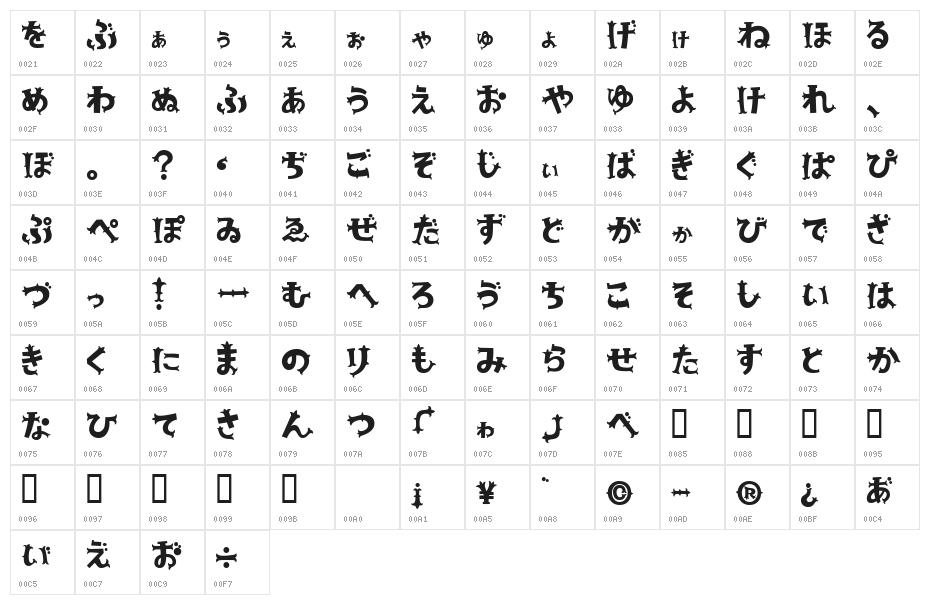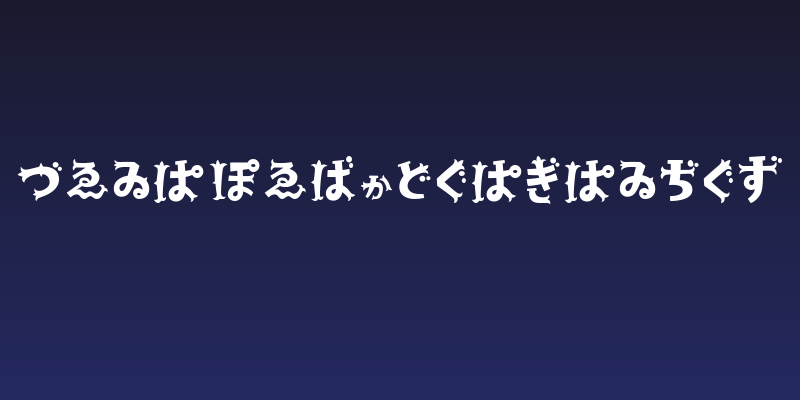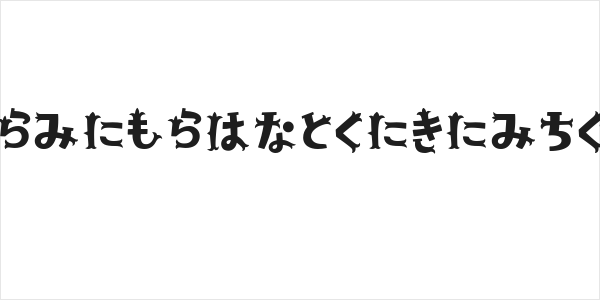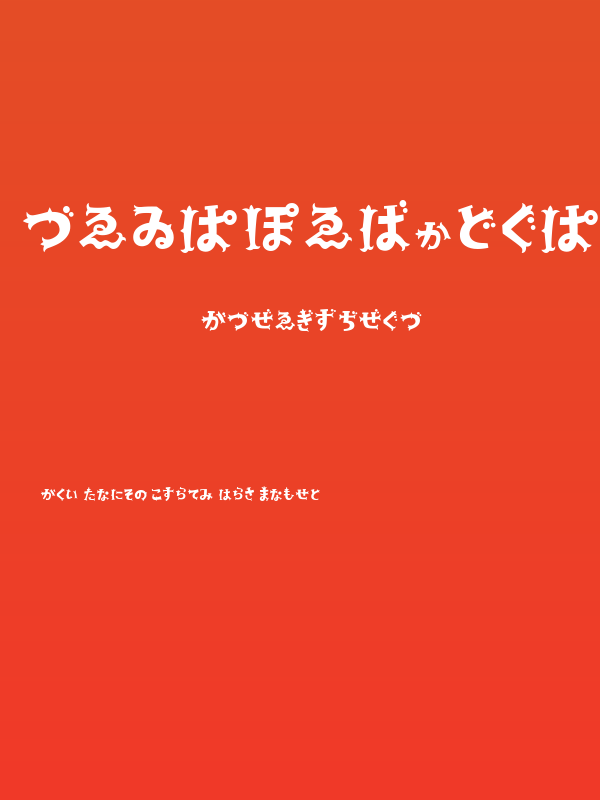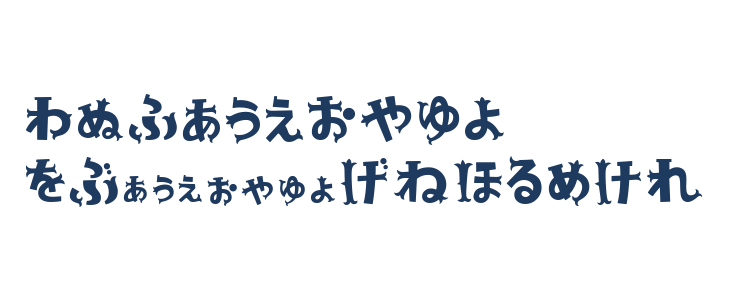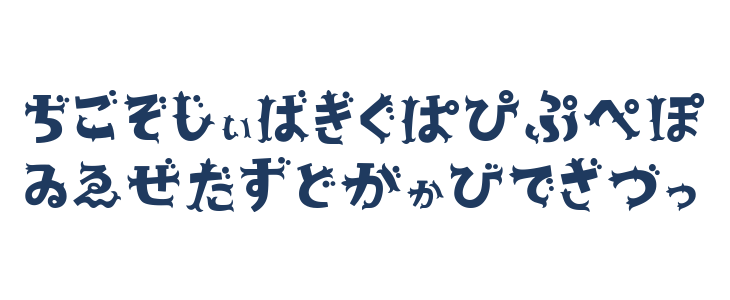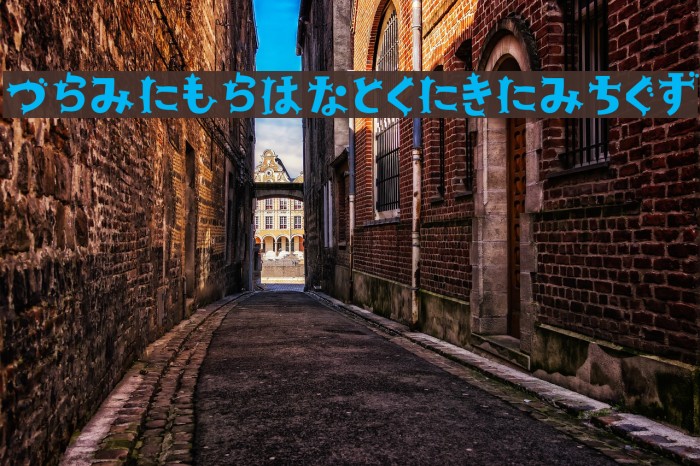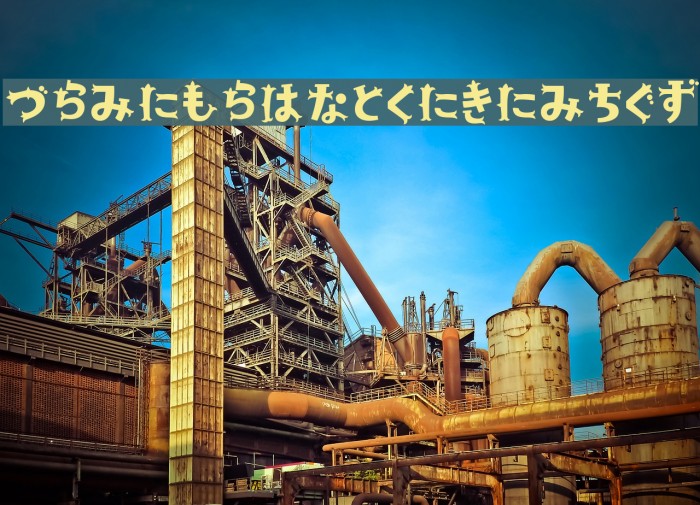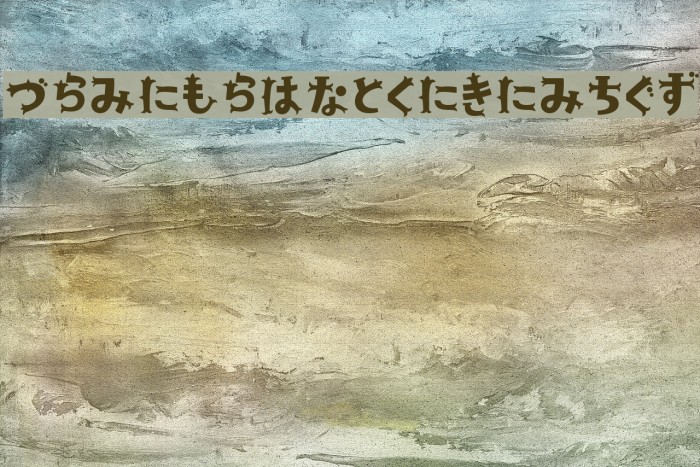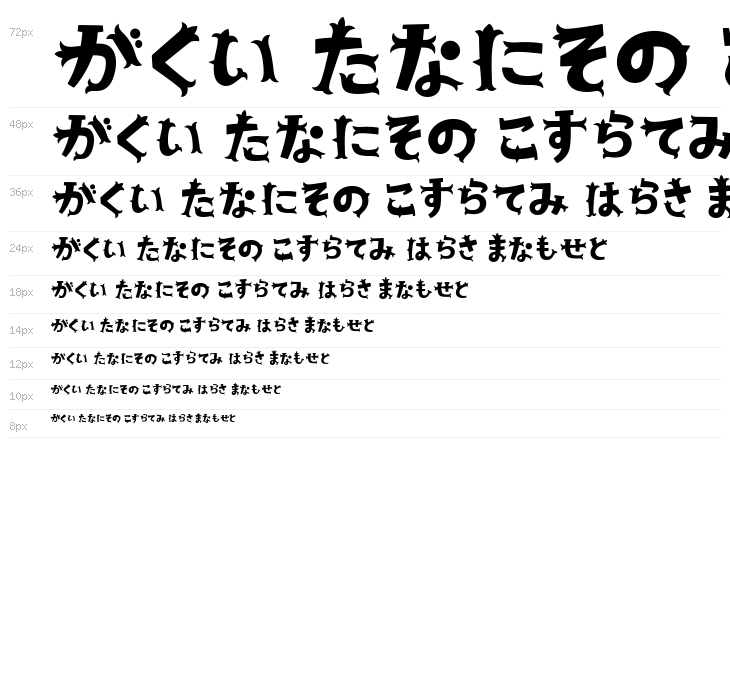
YonimofushiginaHR Font
YonimofushiginaHR Description
This font features a playful and whimsical style, characterized by its bold and decorative elements. The characters exhibit unique, exaggerated serifs and strokes that give it a lively and dynamic appearance. The overall design is reminiscent of traditional Japanese calligraphy, yet it incorporates modern twists with its bold and expressive forms. The font maintains a consistent weight throughout, ensuring readability while adding a touch of artistic flair. Its distinctive style makes it suitable for creative and eye-catching designs.
| Proposed Projects | Ideal for use in creative projects such as posters, branding, and packaging design where a unique and artistic touch is desired. |